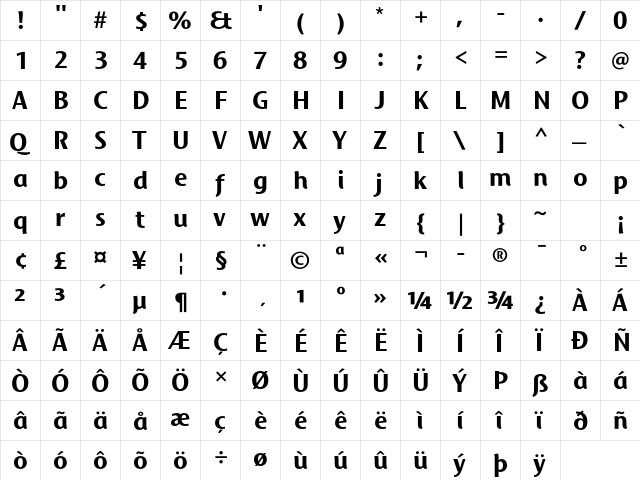
Mosquito Std Bold
Design Context for Mosquito Std Typeface
Mosquito Std takes a measured approach to typography — its balanced proportions and neutral character make it a reliable workhorse for both digital and print work. The heavy weight commands attention and anchors typographic hierarchies.